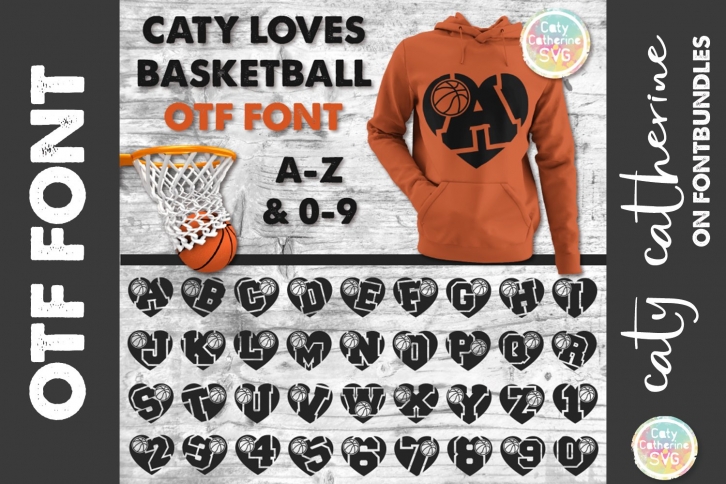
Caty Loves Basketball Love Heart OTF A-Z & 0-9 is a gorgeous font that was realeased on November 30, 2020. The font can be used in many style contexts and design environments. Perfect for invitations, magazines, websites, logos, and more! It was designed by Caty Catherine and the file size is 11.67 MB. Thanks for checking out this font!